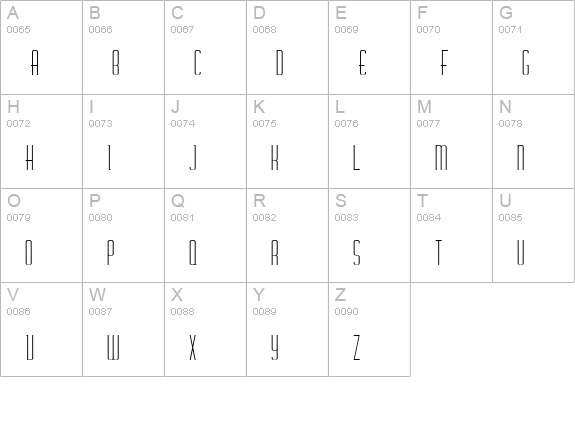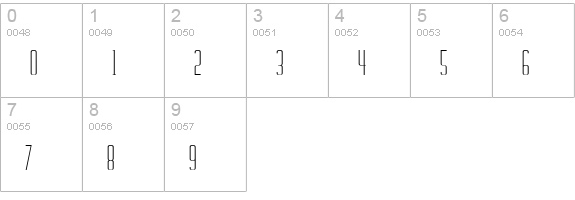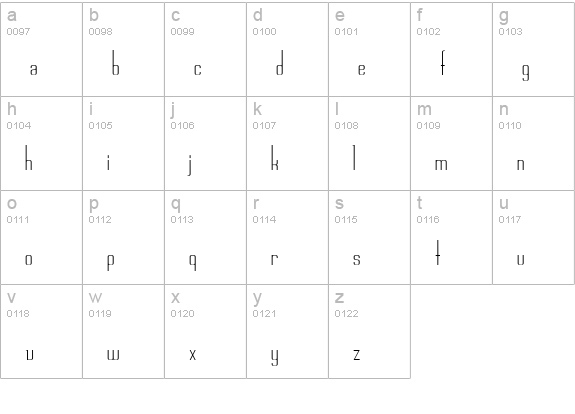
Chasline Normal is the standard, neutral variant in the Chasline typeface family \xE2\x80\x94 well suited to general body text, paragraphs, and standard typographic work.
Chasline Normal font is a versatile and elegant typeface that is perfect for a wide range of design projects. With its clean lines and classic appearance, Chasline Normal exudes sophistication and style. This font is ideal for use in branding, packaging, logos, and more. The best part? Chasline Normal is available for free download at FontsMarket.com! Whether you're a designer looking to add a touch of class to your work or a business owner wanting to elevate your brand's image, Chasline Normal is a must-have font in your collection. Download it today and start creating stunning designs with ease.